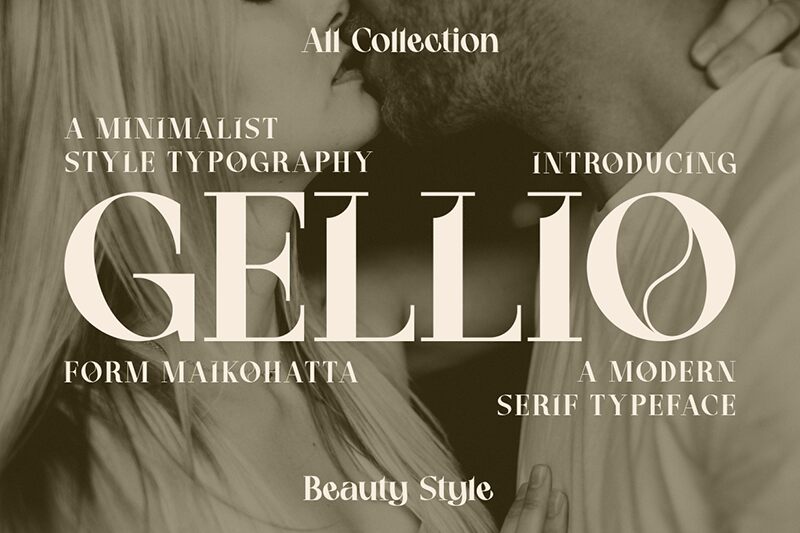
GELLIO
Gellio font is a classic and bold serif creation by Gilang Ternadho. It is elegant, striking, and immediately catches the audience’s attention. Within the actual letter structure are several unique decorative elements that aren’t overpowering on their own but are impactful when work together as one unit. Despite being traditional, Gellio has a modernist flair which lends it more versatile usability.
Classic design projects of all types can benefit from using this free serif font. Utilize it in book covers, headline titles for newspapers or magazines, posters, labels on packaging or bottle designs, signage work, branding campaigns as well as stationery items such as certificates and business cards.